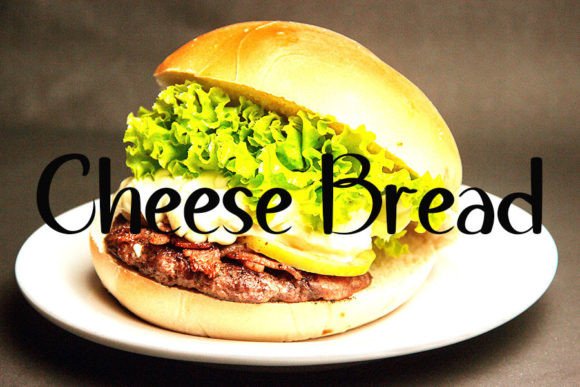
The Perfect Loaf: Discovering the Charm of Bread Food Font
I’ll never forget the time I was working on a branding project for a bakery, and I just couldn’t find the right font to capture the warmth and coziness of freshly baked bread. The client was specific: it had to be friendly, approachable, and, above all, look like it was written with love. That’s when I stumbled upon Bread Food Font, and it was like finding the perfect loaf in a crowded bakery – it just felt right.
A Love Affair with Bread Food Font
Bread Food Font is a neat and beautiful handwritten font that exudes a cool, natural touch, making it perfect for a wide range of projects. Its incredibly distinct and timeless style won me over, and I’m sure it will do the same for you. Here’s what I love about it:
- ✨ Unique, hand-crafted feel that adds a personal touch to any design
- ✅ Versatile and adaptable to various design styles and themes
- ✅ Supports OpenType features, glyphs, and stylistic alternates for added creativity
A Few Minor Quirks
No font is perfect, and Bread Food Font is no exception. Here are a few things to keep in mind:
- 🤔 Some users might find the font a tad too casual for very formal or corporate projects
- ⚠️ Limited availability of certain special characters and glyphs
The Story Behind Bread Food Font
Bread Food Font was created with the intention of capturing the warmth and comfort of homemade bread. The designer aimed to create a font that would feel approachable, friendly, and, above all, deliciously human. While the exact story behind the font’s creation might be shrouded in mystery, its charm and character are undeniable.
| What makes Bread Food Font unique? | Bread Food Font boasts a distinctive, hand-crafted feel with a natural touch, making it perfect for designs that require a personal and friendly tone. |
| Is Bread Food Font suitable for body text? | While Bread Food Font is highly legible, it’s best suited for headings, titles, and short paragraphs. For longer body text, a more traditional font might be more suitable. |